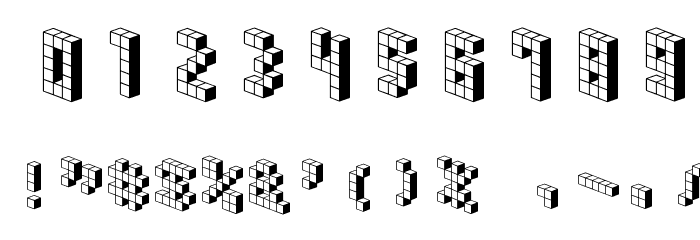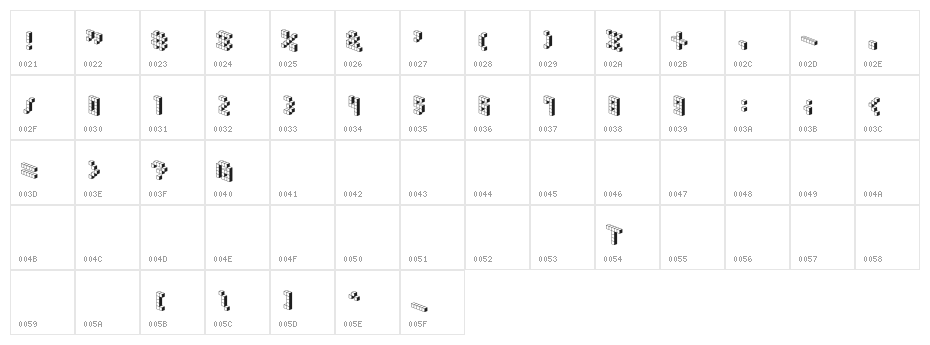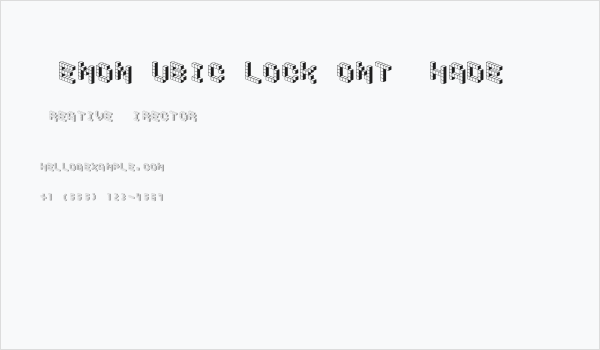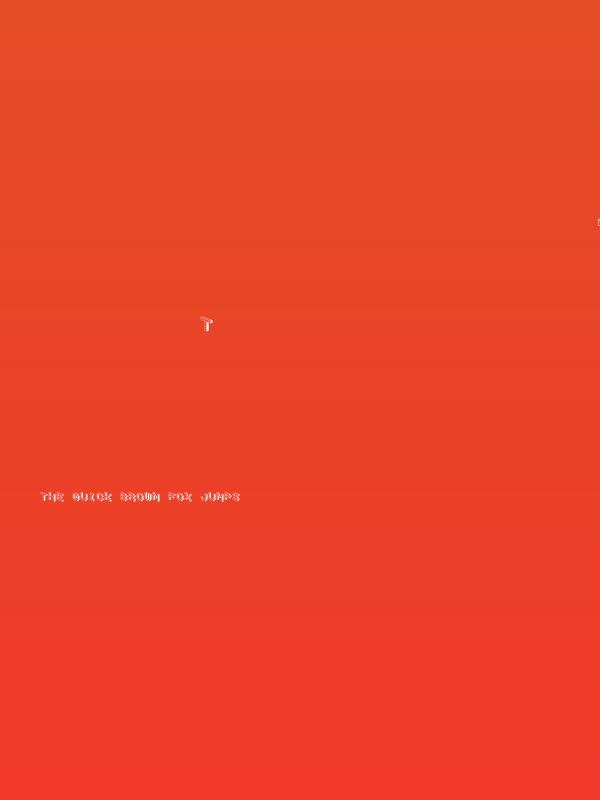
DemonCubicBlockFont Shade Font
DemonCubicBlockFont Shade Description
This font features a unique cubic block design, where each character is constructed from a series of three-dimensional cubes, creating a striking and bold visual effect. The letters and numbers are formed with a consistent blocky style, giving them a playful yet structured appearance. The shading on the cubes adds depth and dimension, enhancing the three-dimensional illusion. This font is highly decorative and stands out due to its geometric and modular design, making it ideal for eye-catching displays.
| Proposed Projects | Ideal for video game titles, posters, creative branding, and any project requiring a bold, eye-catching display font. |